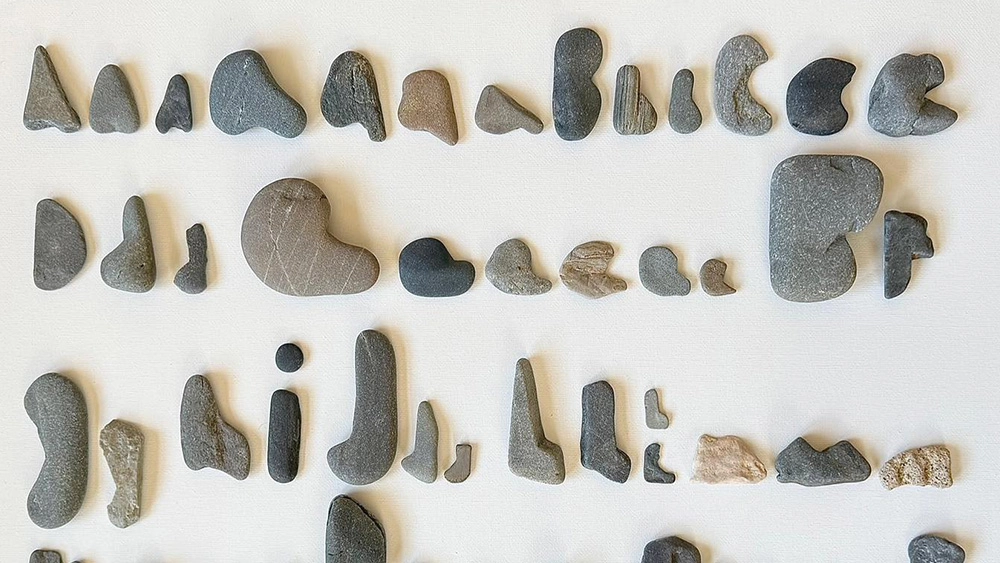
Someone please turn this adorable rock collection into a font
We've written about fonts and typefaces made from all kinds of things over the years. We've seen typography inspired by mushrooms and even a boob alphabet. But letterforms in found objects have their own unique appeal.
It's always fun to find signs and images in the natural world, from faces in wood whorls to accidental optical illusions. So it made by day to discover that an artist has collected an entire alphabet (and then some) in pebbles. As you would hope, it totally rocks.
Crystal Reed of Crafts by Cris, LLC makes pebble art, including ornaments and framed collages, using the stones she finds. She tells me she began collecting rocks when her son was little and showed an interest in them.
"We would collect cool rocks that we found. Eventually, we painted some of the rocks to gift to people or hide around town for others to find," she says.
In 2017, she learned about pebble art, and began to create her own pieces with rocks. "I was always drawn to rocks with cool shapes, patterns and colors," Crystal says. "Eventually, I started finding some letter shapes. Once I found a few letters, I just continued to look for more."
Last week, she found a K and an X – the last two letters she needed to complete a full alphabet. She says her goal is now to find uppercase and lowercase forms for every letter, along with the numbers 1 through 10 and even punctuation. I'm thinking that curly brackets may be tough, but perhaps the ultimate challenge would be to find an entire set of italics!
And when she has the full set? Crystal says she hopes to use the rocks in her work as a school-based occupational therapist. "I see students in first through fifth grade," she says. "A part of what I do is help students who struggle with letter formation and the underlying skills of writing. When I have the whole alphabet in shapes and sizes that I like, I plan to mount the letters on a large canvas that I can hang in my OT classroom."
It's a beautiful project, and it also strikes me as one of those hobbies that makes life worth living – something you can do anywhere, too. The typography fan in me thinks it would be very cool if someone could turn the whole collection into a custom font.